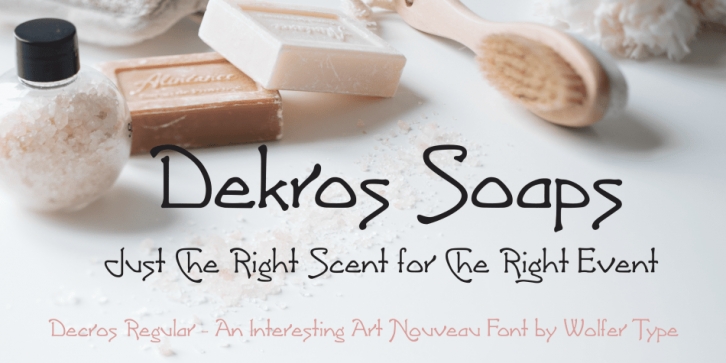
Designed by William Wolfer, Dekros is an art nouveau font published by FontHaus.
Dekros has the look and feel of an Art Nouveau font when a key feature in much of the design of the 1890s was characterized by intricate linear and flowing curves that were based on natural and organic forms.